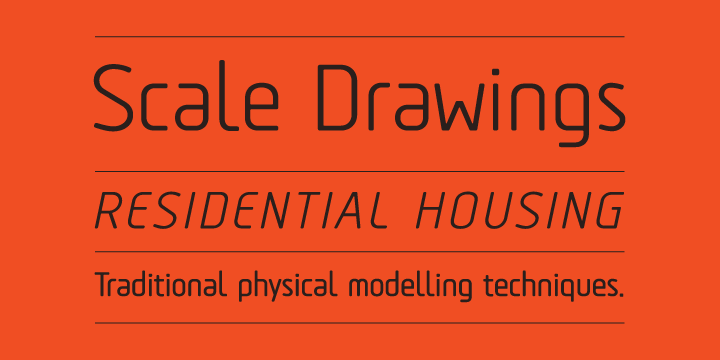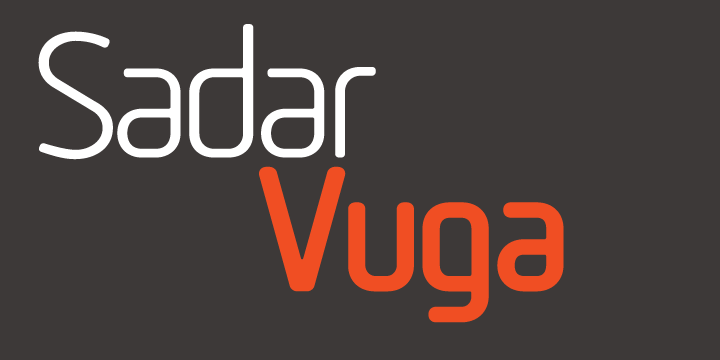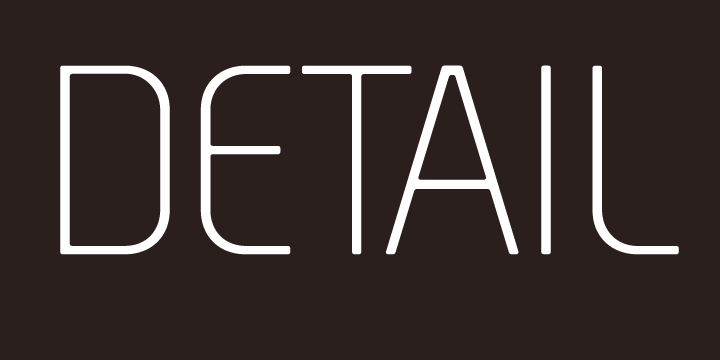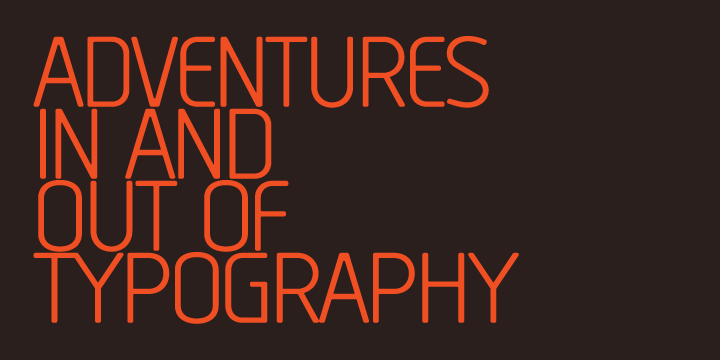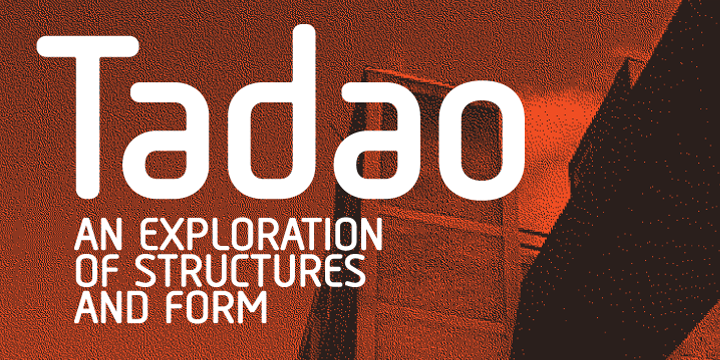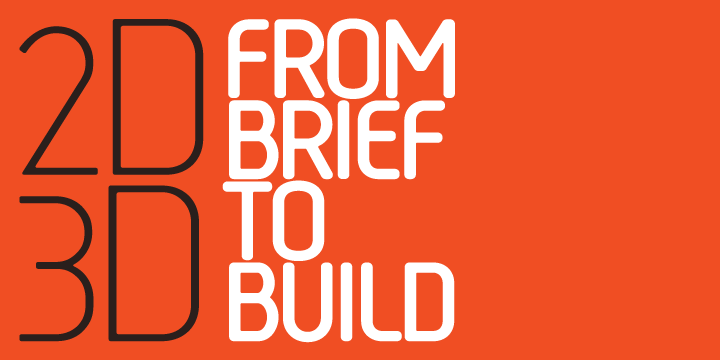
Tadao is a sans serif font family. This typeface has six styles and was published by The Northern Block.
A precise rounded typeface with a clean and linear appearance. The simple compact nature of the design allows for great economy of space across layouts. Also deliberate consideration has been paid to inner corners to ensure no dark areas are produced within texts. Details include 6 weights, an extended European character set, manually edited kerning and Euro symbol.